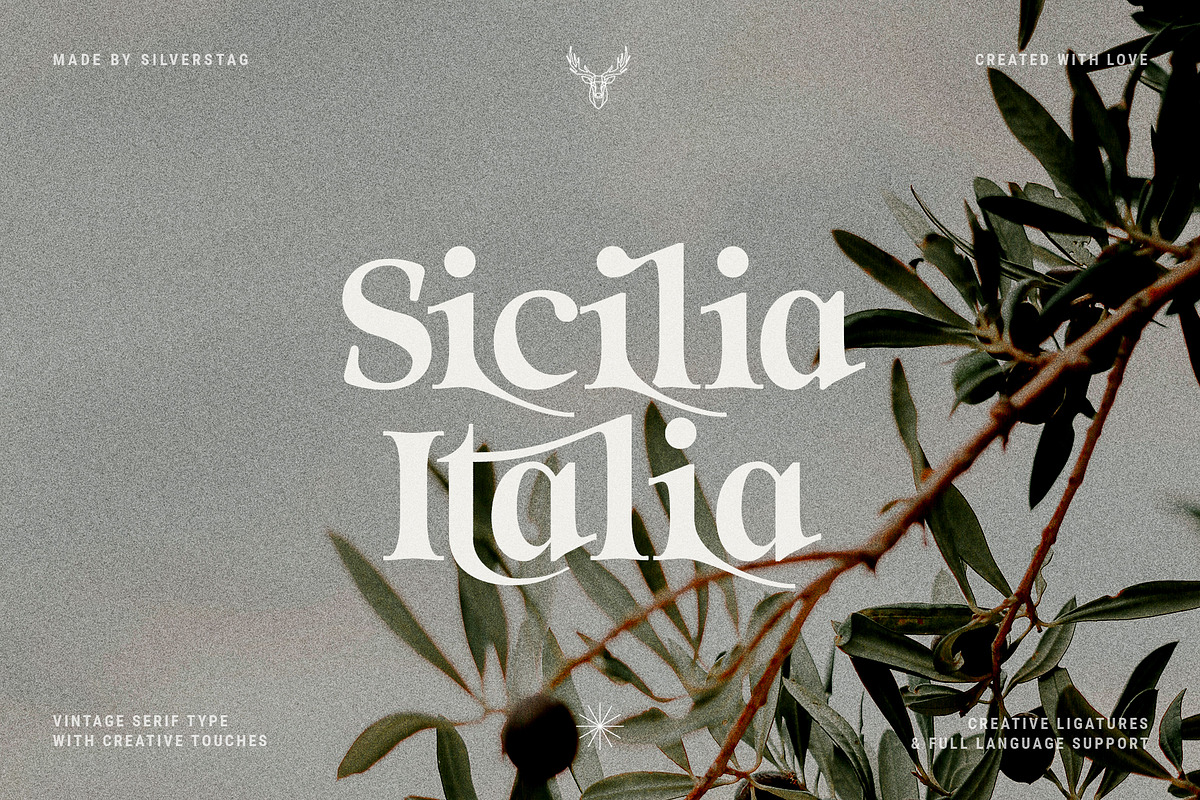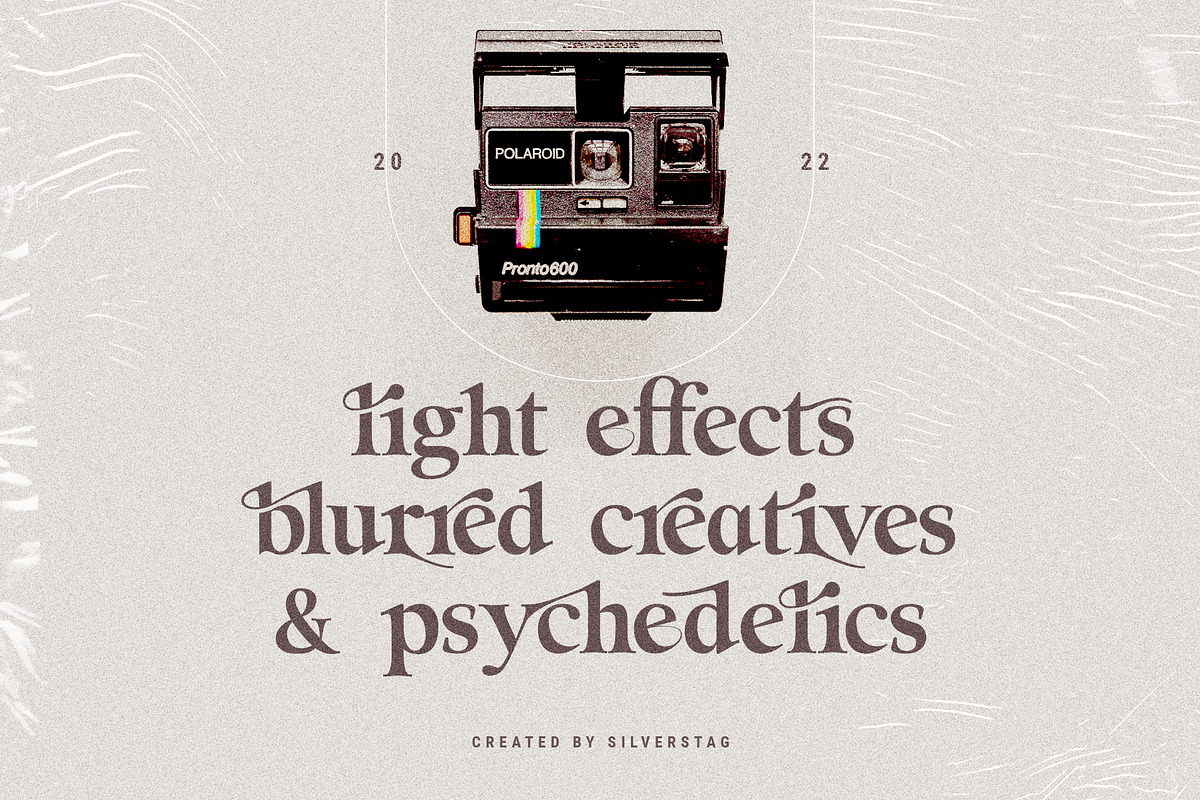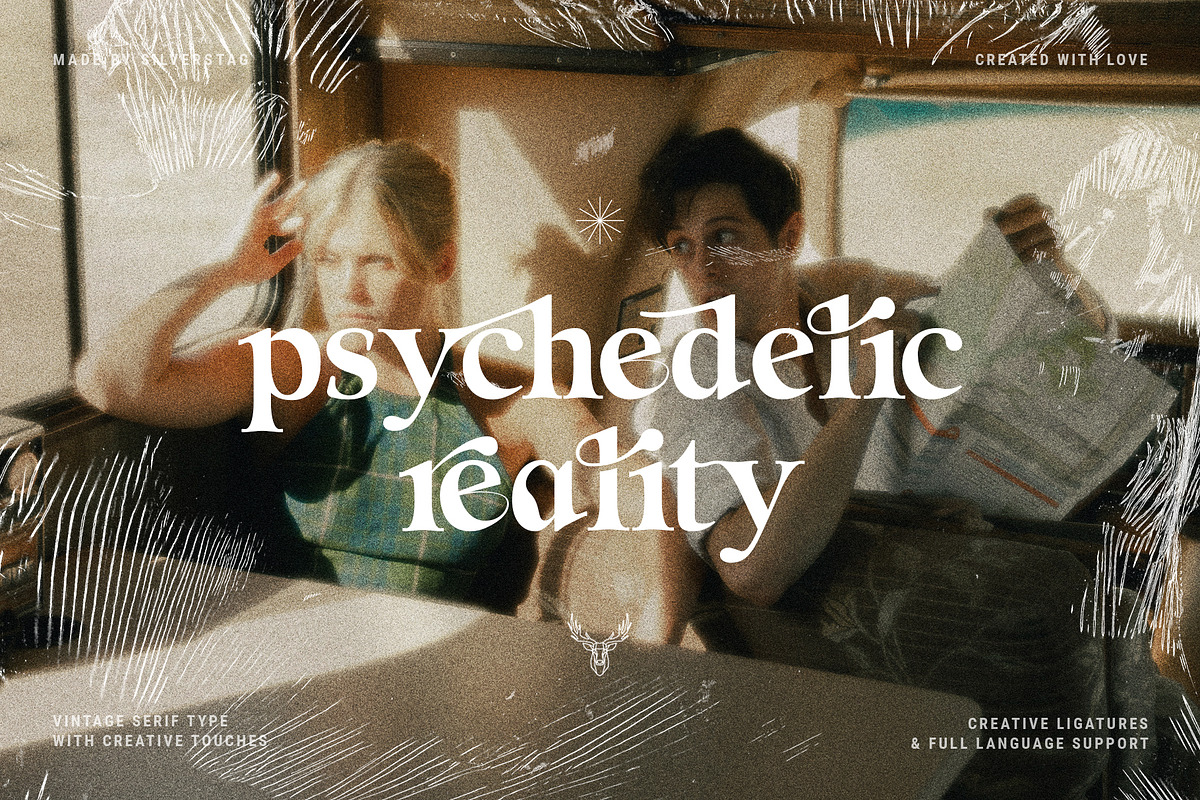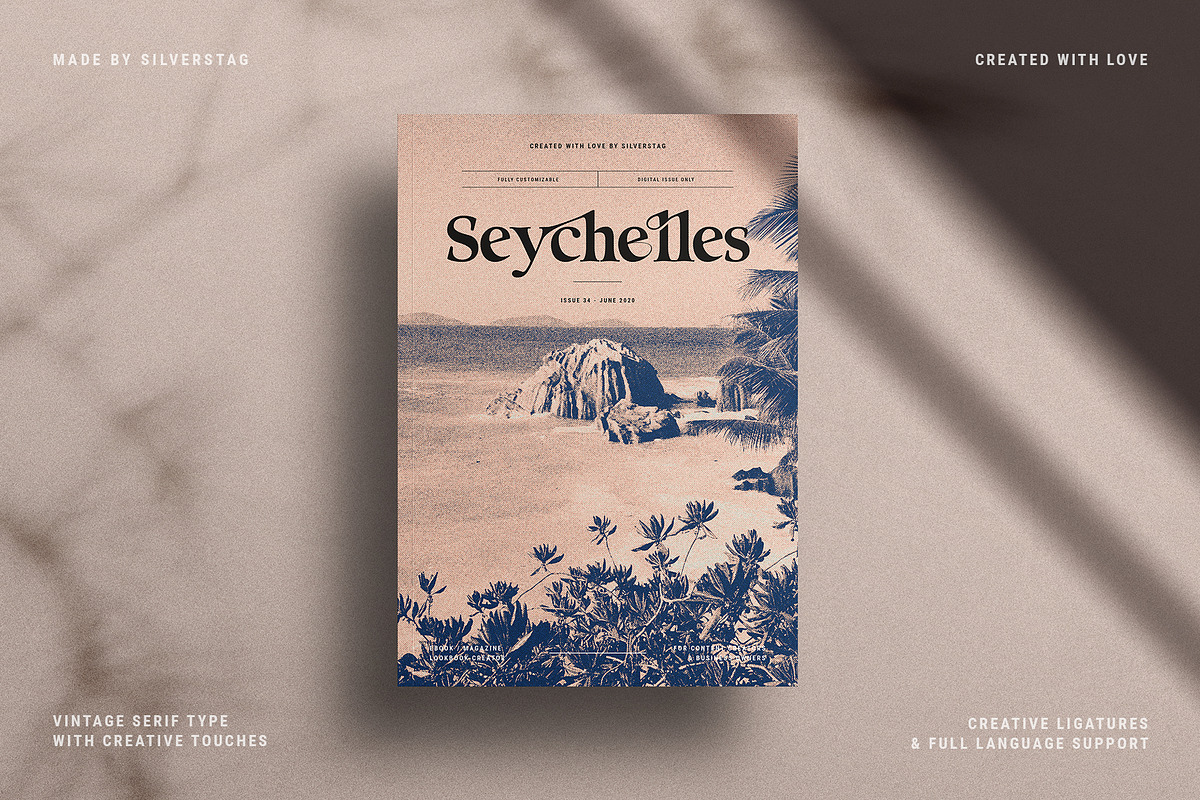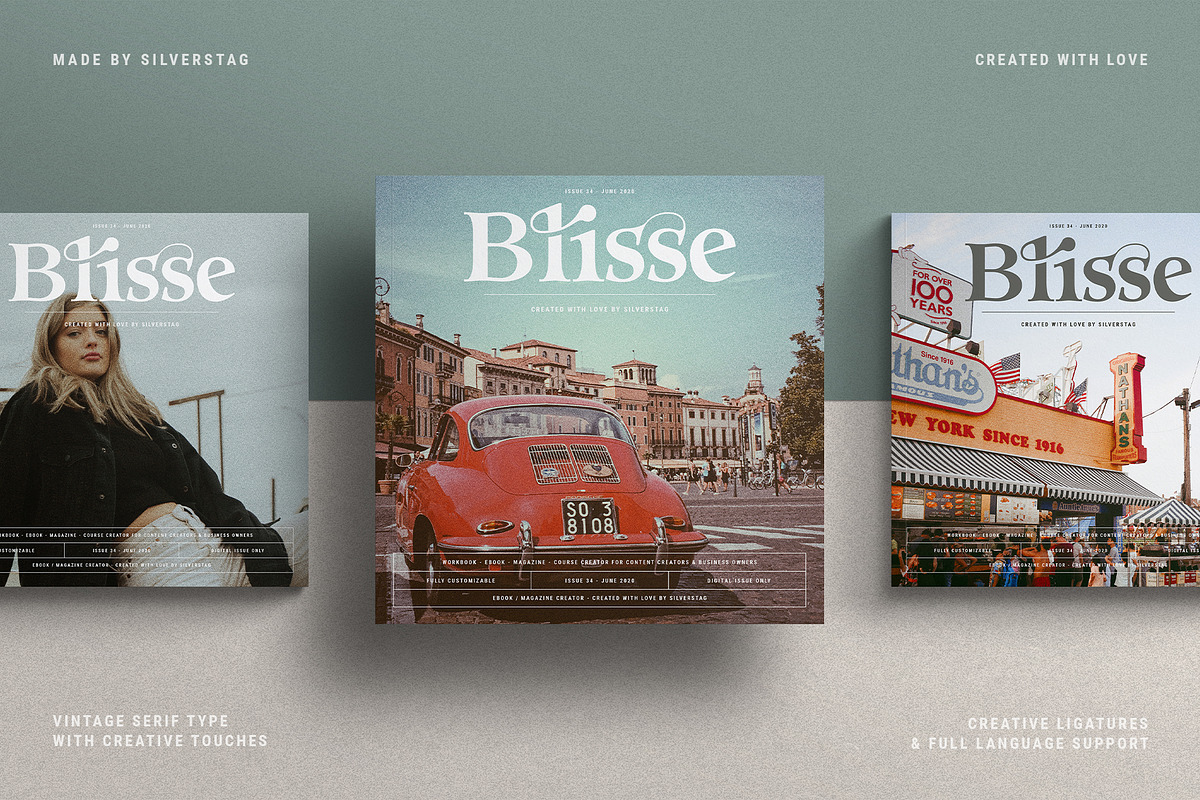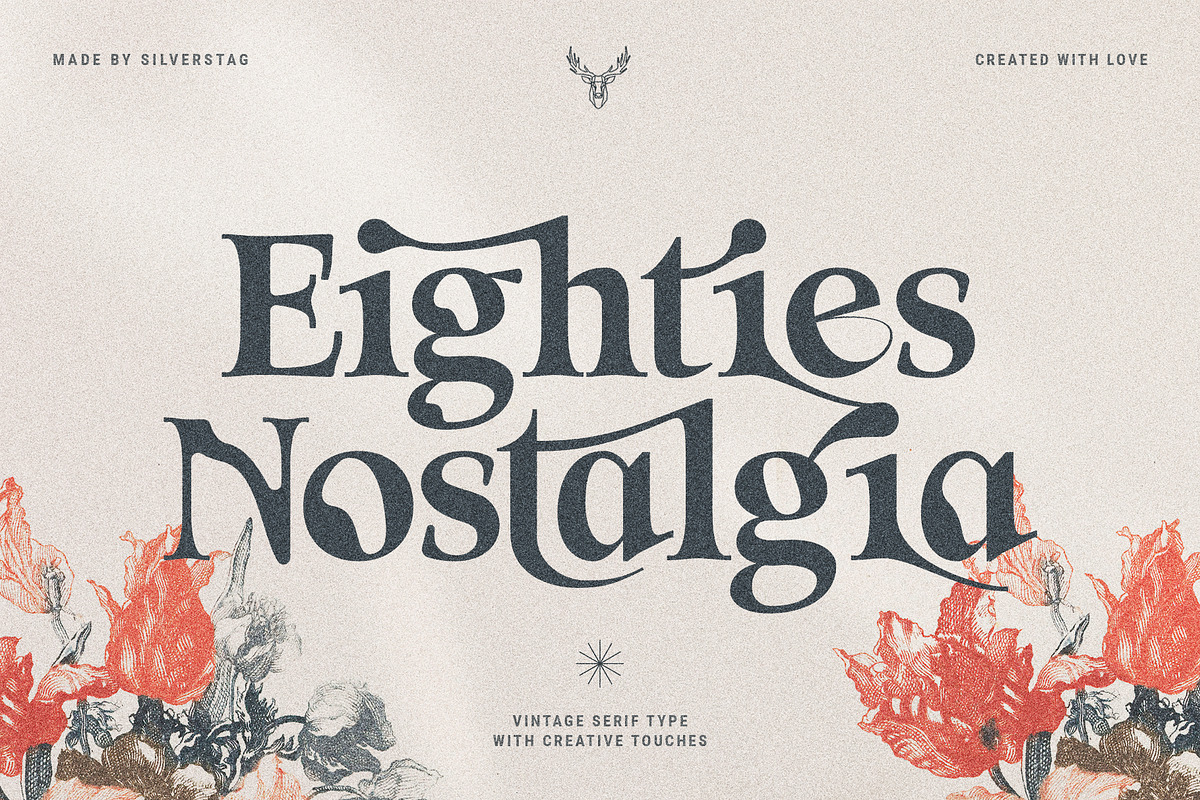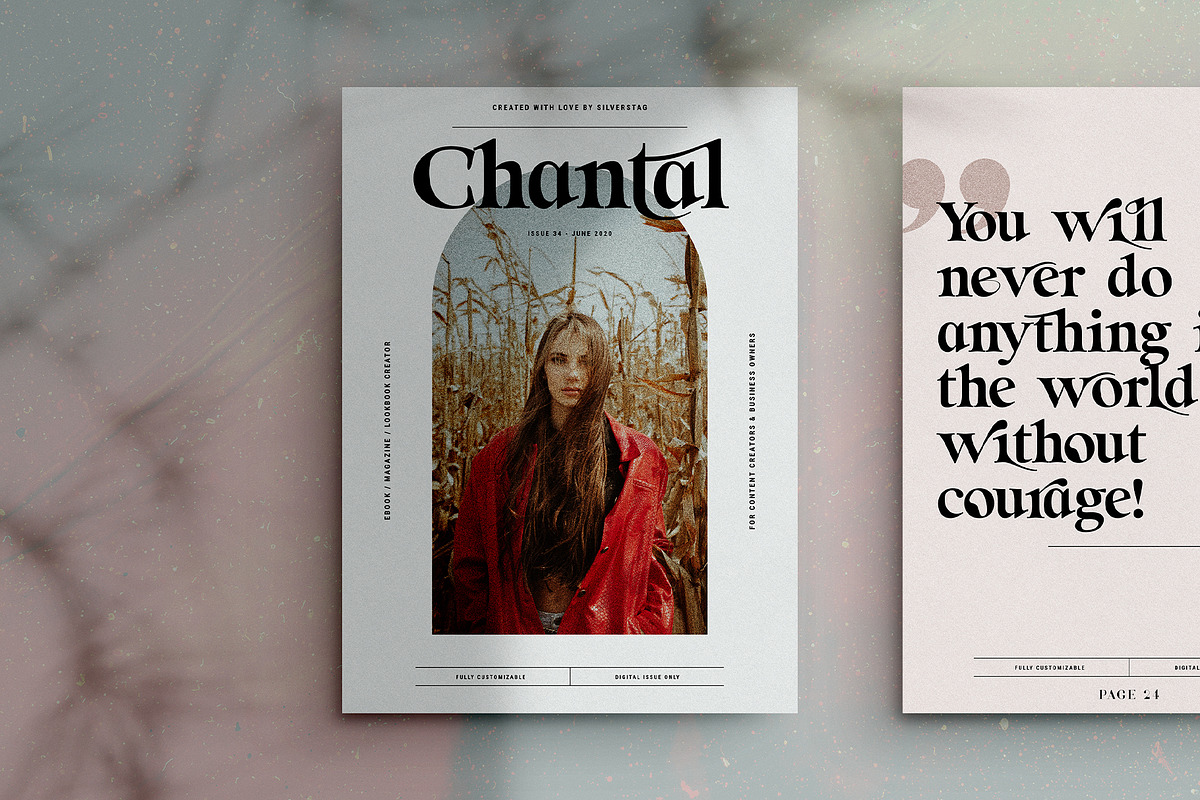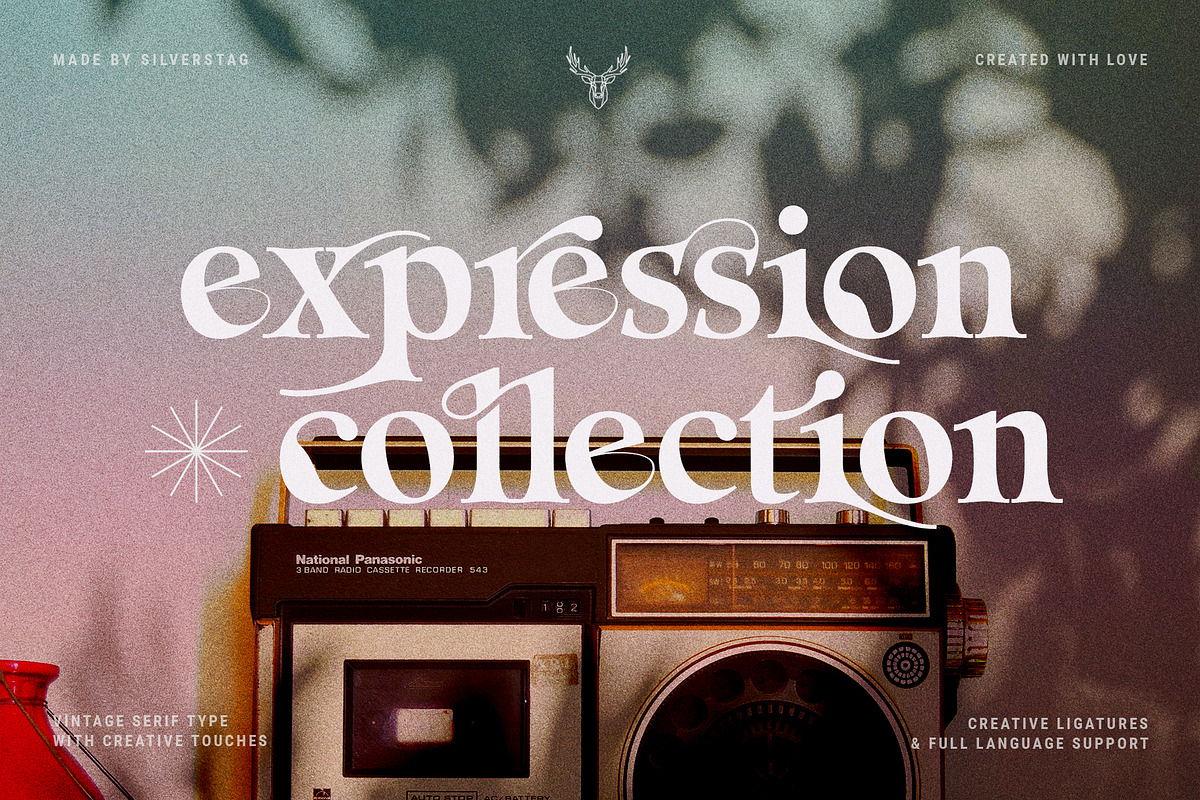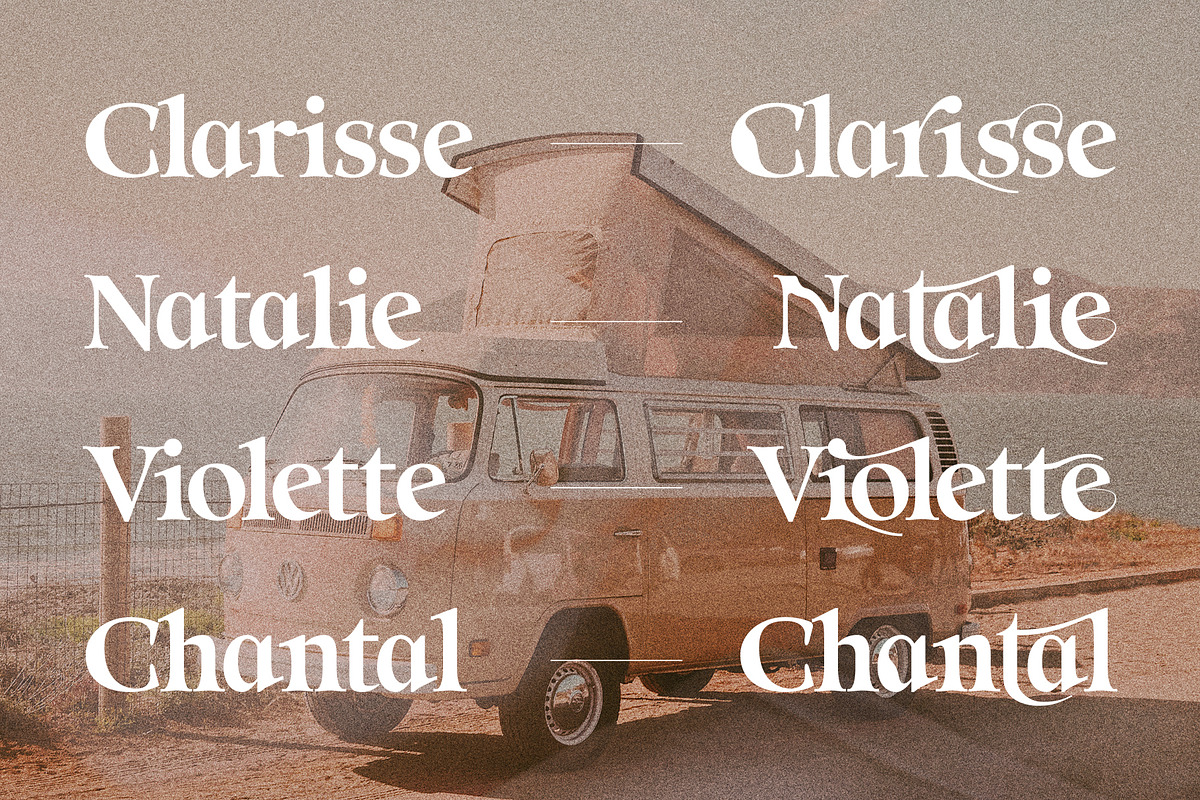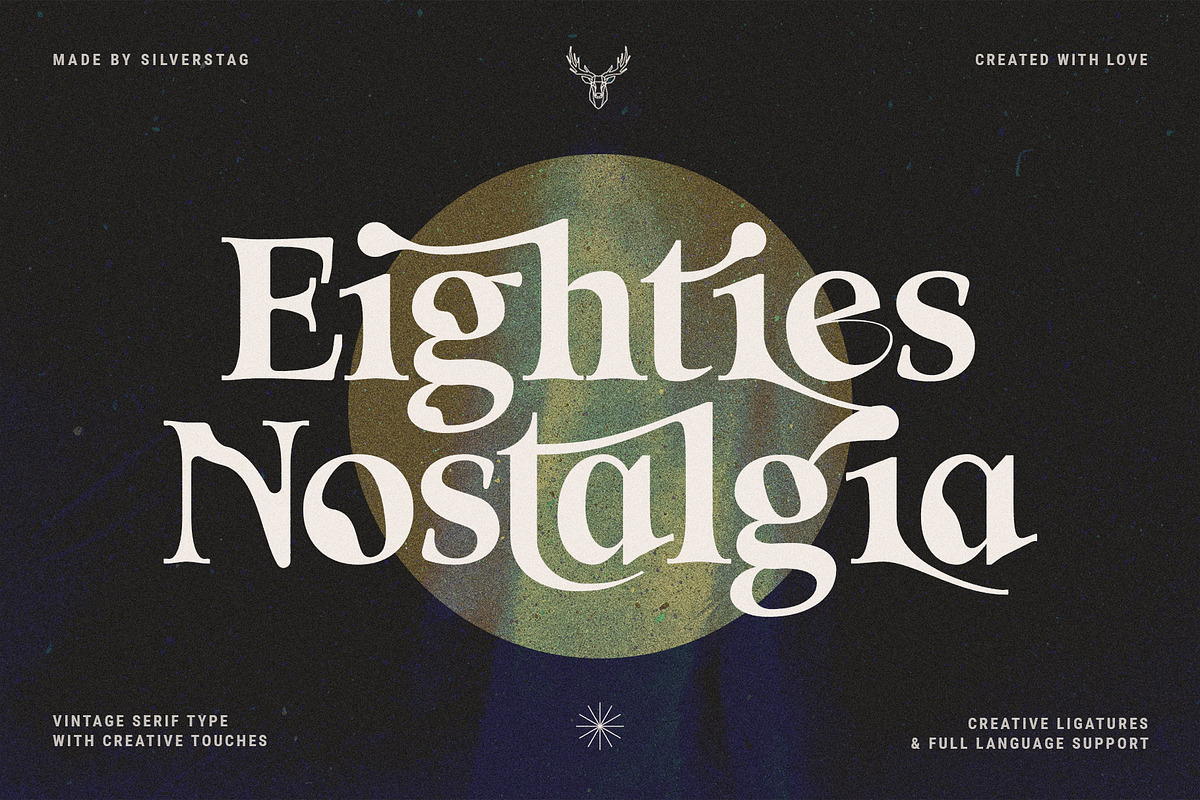
Eighties Nostalgia - Ligature Serif
Hey everyone, I hope you’re doing well and that you are making a progress in all fields of your life, as much as it is possible considering all that’s happening in the world right now. The last 3 years have been a rollercoaster for all of us and I have been quite nostalgic about the good times. The nostalgia took me to Pinterest and naturally, some creative ideas came up, so I am bringing you a part of it through my new ligature serif - Eighties Nostalgia.
Each of the letters and ligatures was handcrafted and made to fit other letters without exception. All letters are 100% unique with edgy and modern design that will give you a look that is different than any other. The font comes with 2 sets of capital and lowercase letters and with additional alternate letters, as well as creative ligatures.
Eighties Nostalgia is a perfect choice if you are working on a new poster, birthday card, newsletter, logo, website or branding. It is created to be used in bold ways that will display your and your clients uniqueness! Check out the photos I have prepared for you to see what you can do with it and happy creating!
- 2 Sets of lowercase and uppercase letters